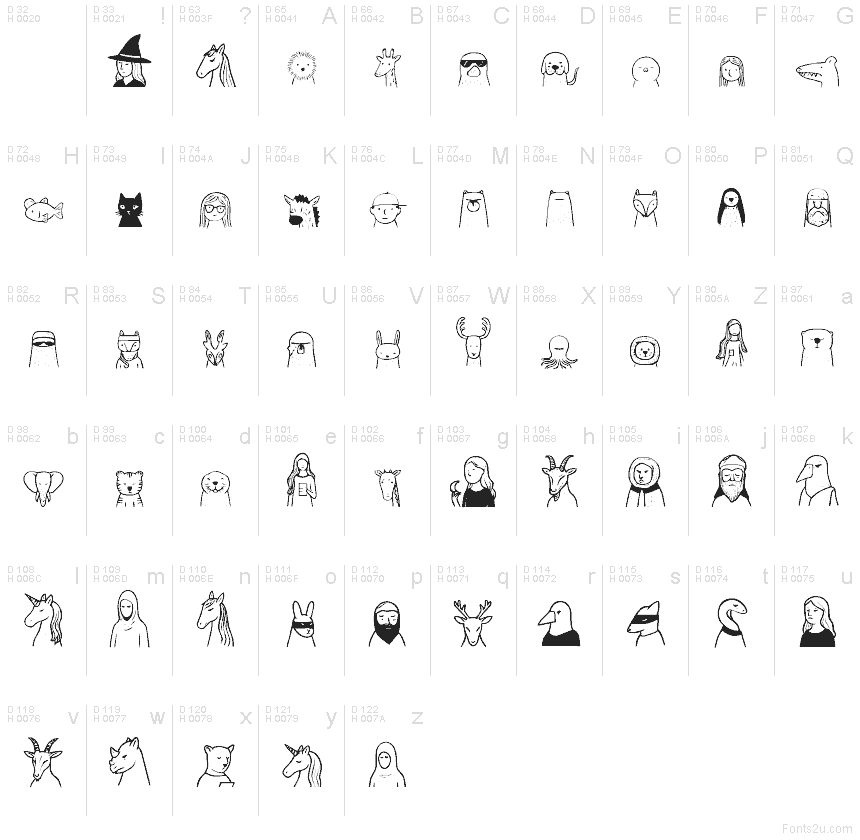
Munchpixed
Munchpixed font by BlackFridayFont FMF is a free cartoon dingbat font that turns a simple line of text into a quirky parade of hand‑drawn characters. Each glyph is an illustrated portrait—animals, people, and in‑between creatures—inked with loose, sketchy strokes that feel like they came straight from a notebook margin. The expressions are calm and slightly odd, giving your layouts a quiet, storybook kind of humor rather than loud slapstick.
Using Munchpixed, you can quickly build character strips for kids’ posters, zines, classroom materials, branding for playful products, social media graphics, or sticker sheets. This free font shines when you set it large, treating each glyph as a tiny illustration rather than text. Pair these doodled figures with a clean rounded sans serif to keep the focus on the characters while maintaining readable captions and titles.